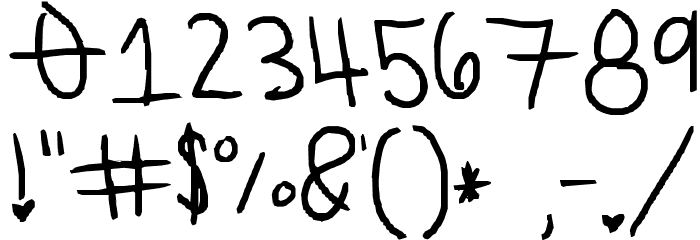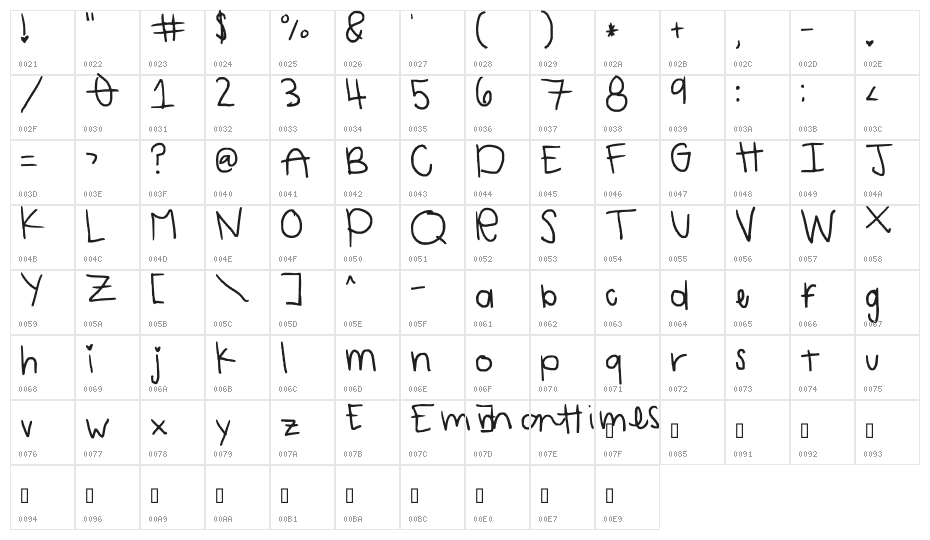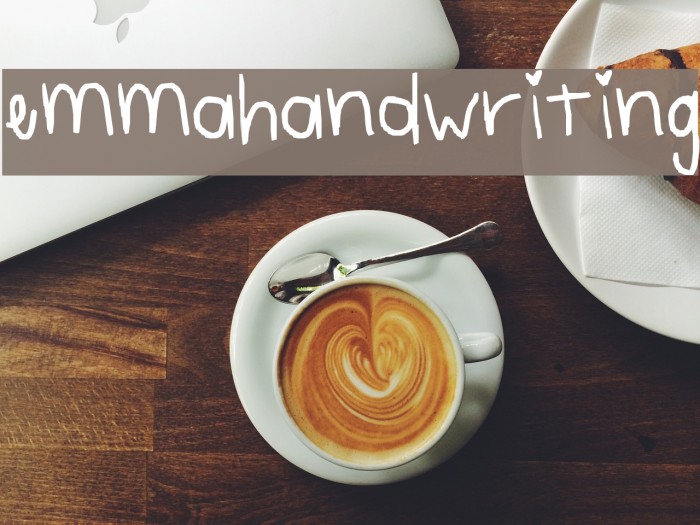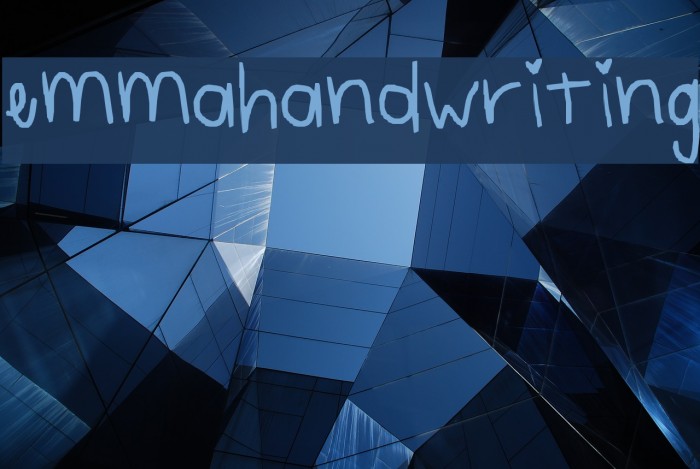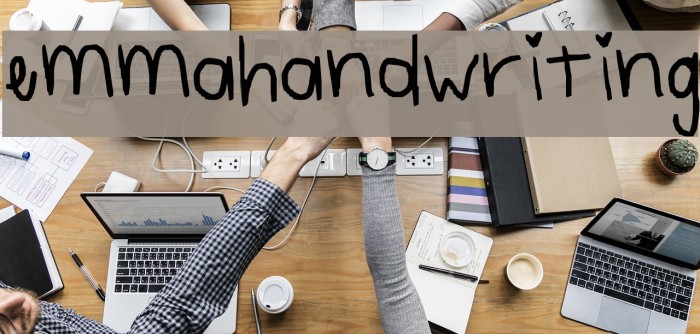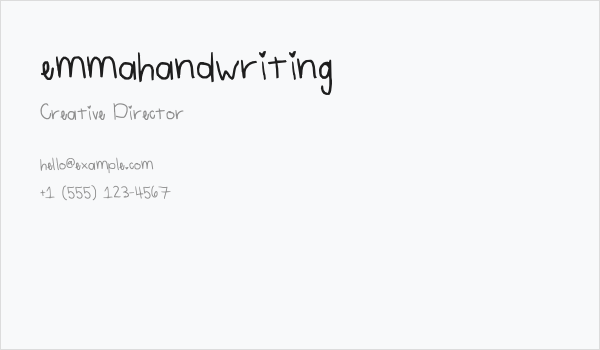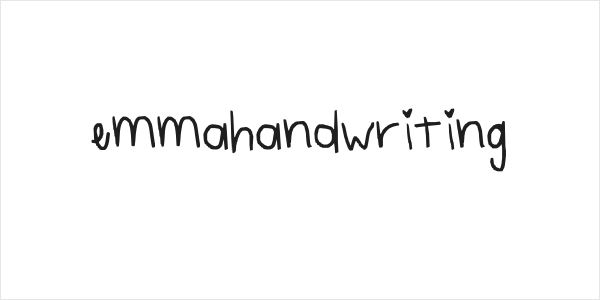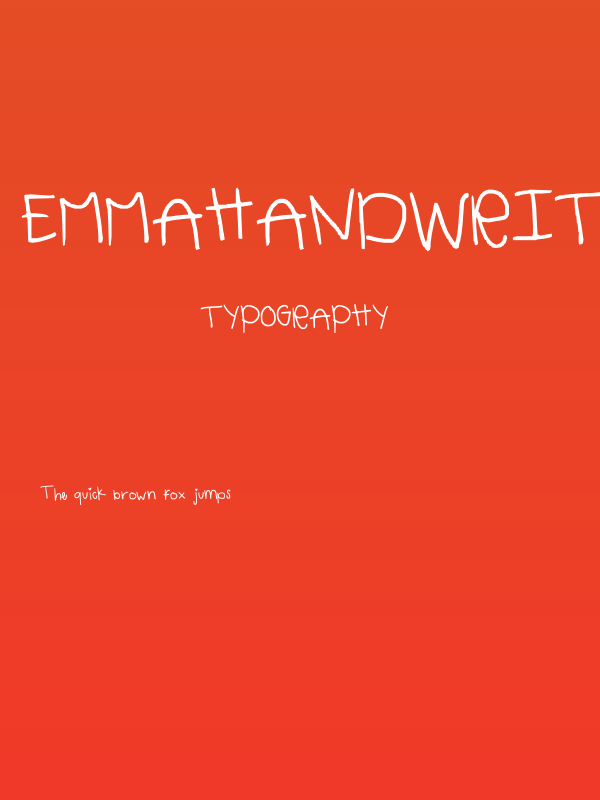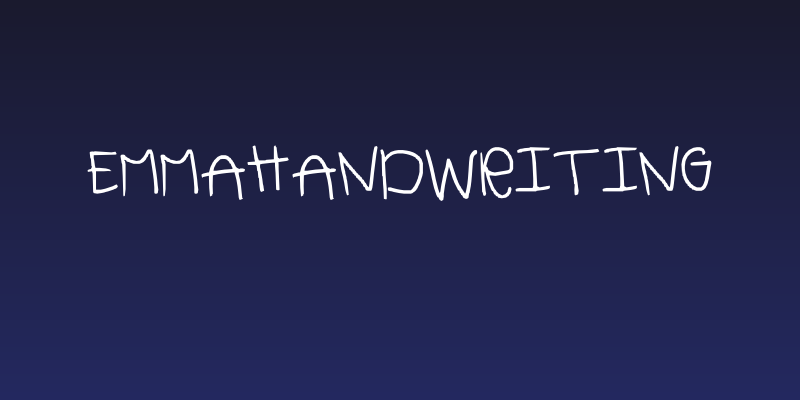
emmahandwriting Font
emmahandwriting Description
This font exudes a playful and casual handwritten style, characterized by its irregular and slightly whimsical letterforms. The uppercase letters are bold and slightly uneven, giving a sense of spontaneity and charm. The lowercase letters maintain a consistent flow, with some characters featuring unique embellishments like hearts on the 'i' and 'j'. Numbers and special characters follow the same playful theme, making the font suitable for informal and creative projects. The overall appearance is approachable and friendly, ideal for capturing a personal touch.
| Proposed Projects | Ideal for greeting cards, children's books, personal blogs, and creative branding projects. |